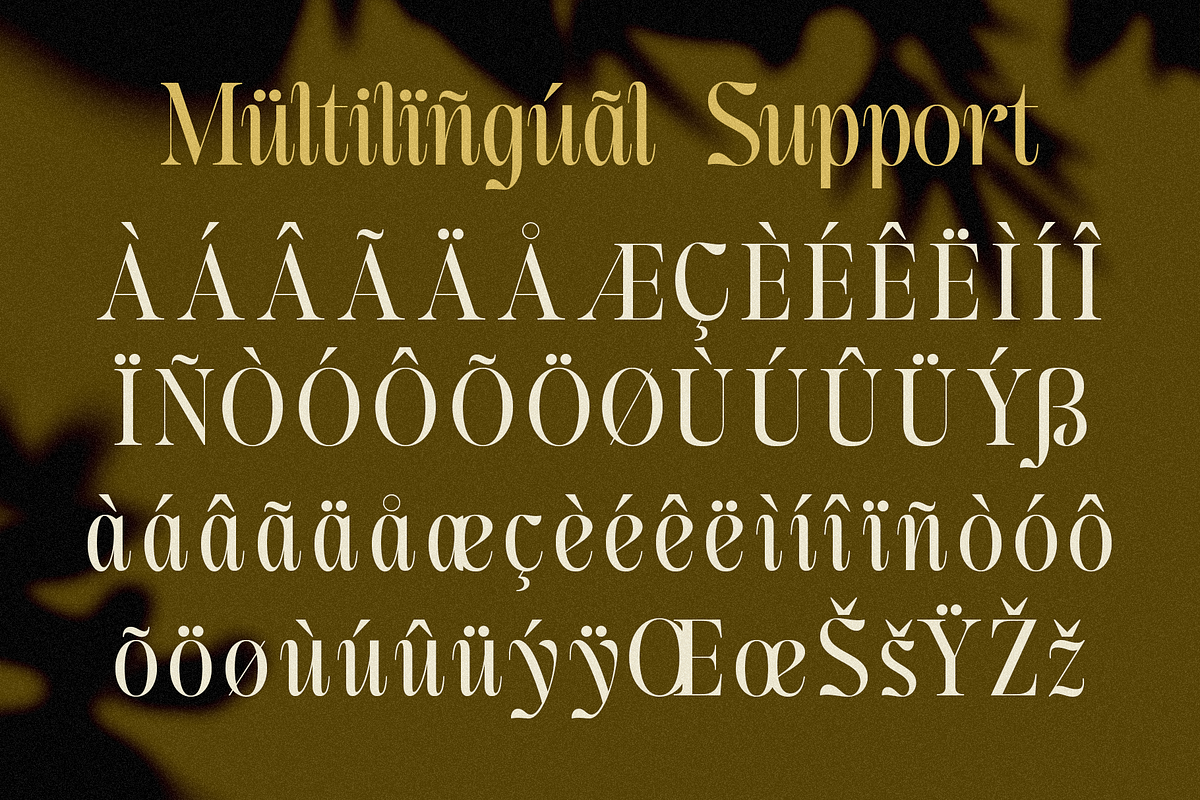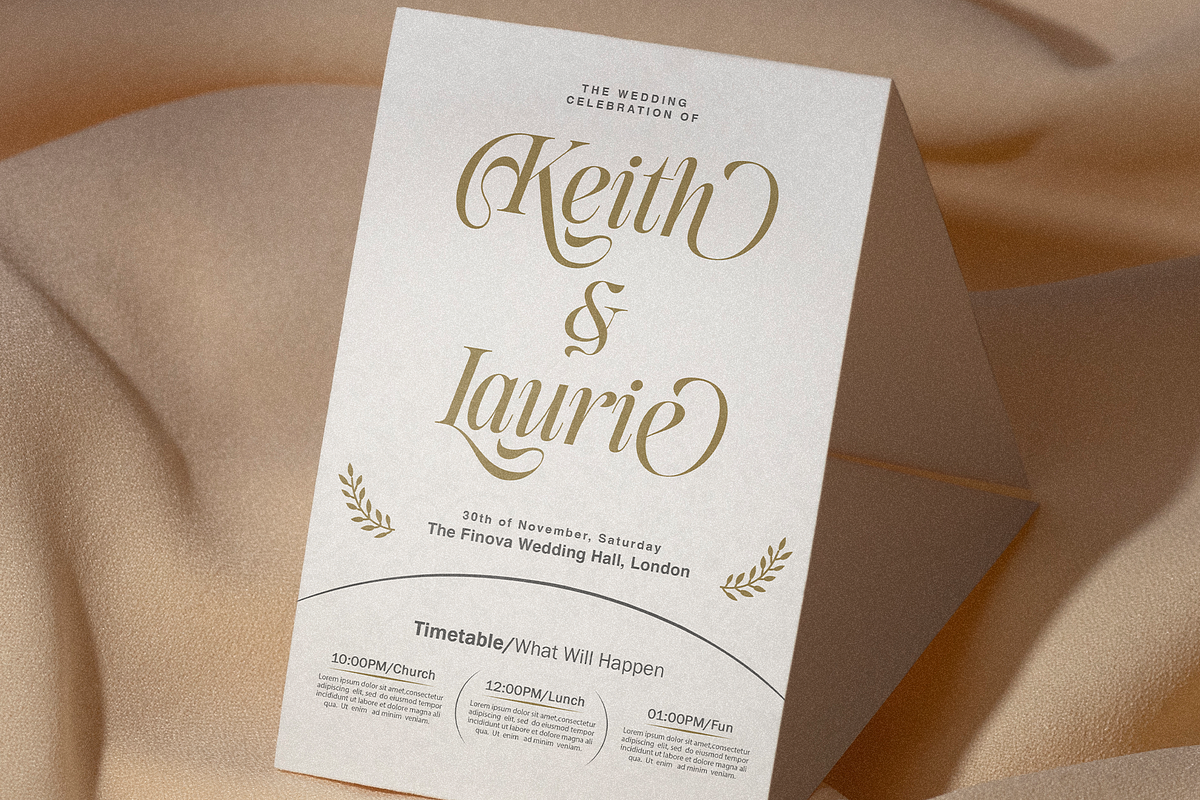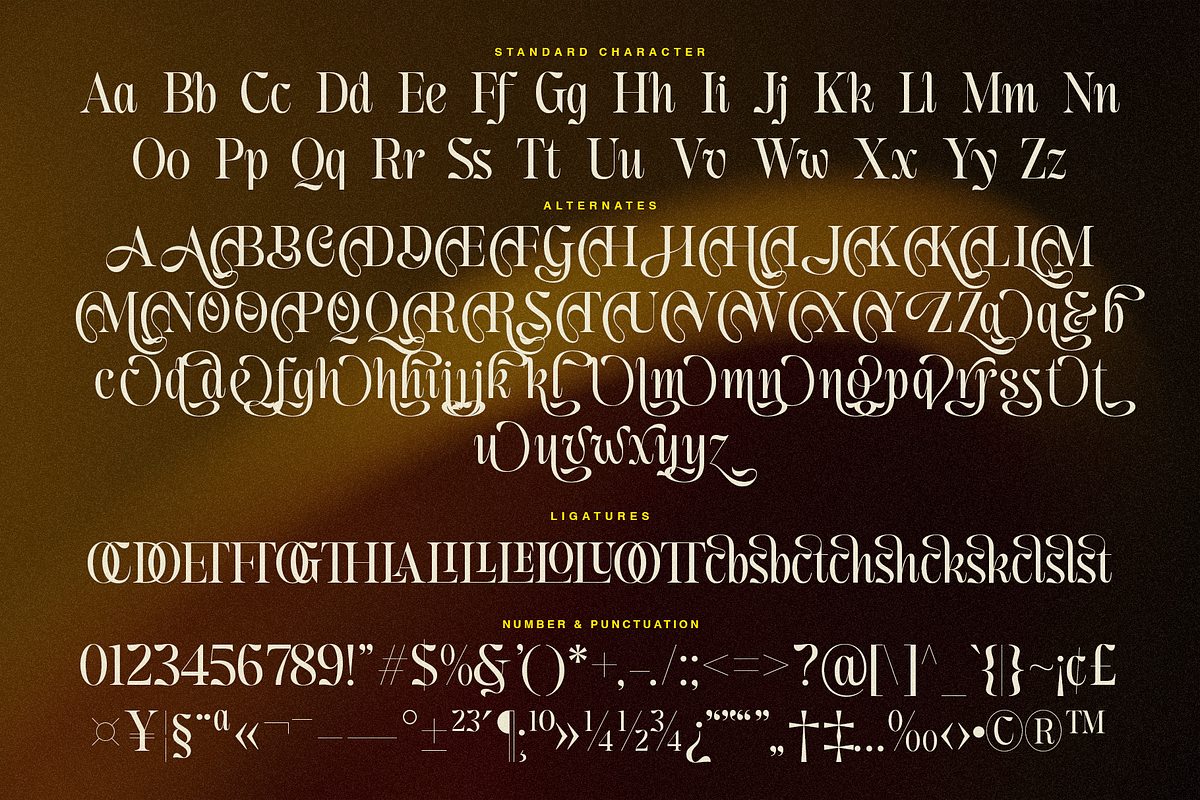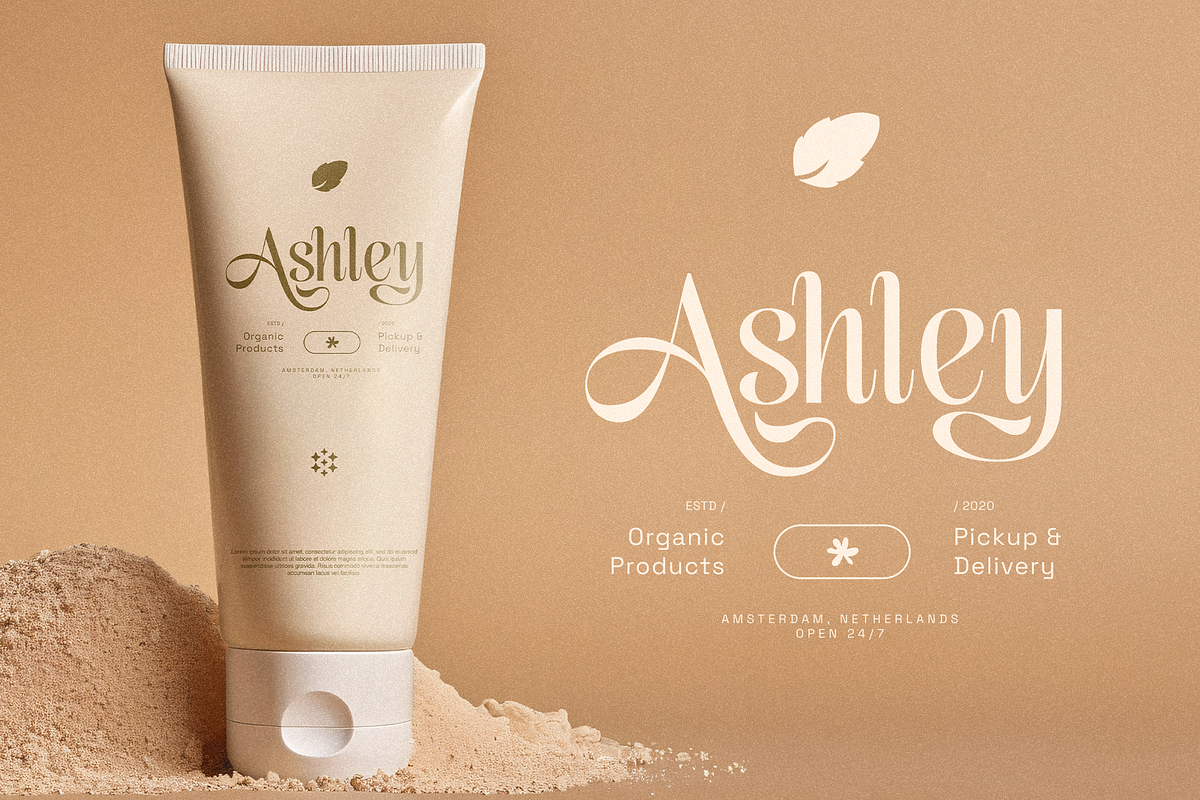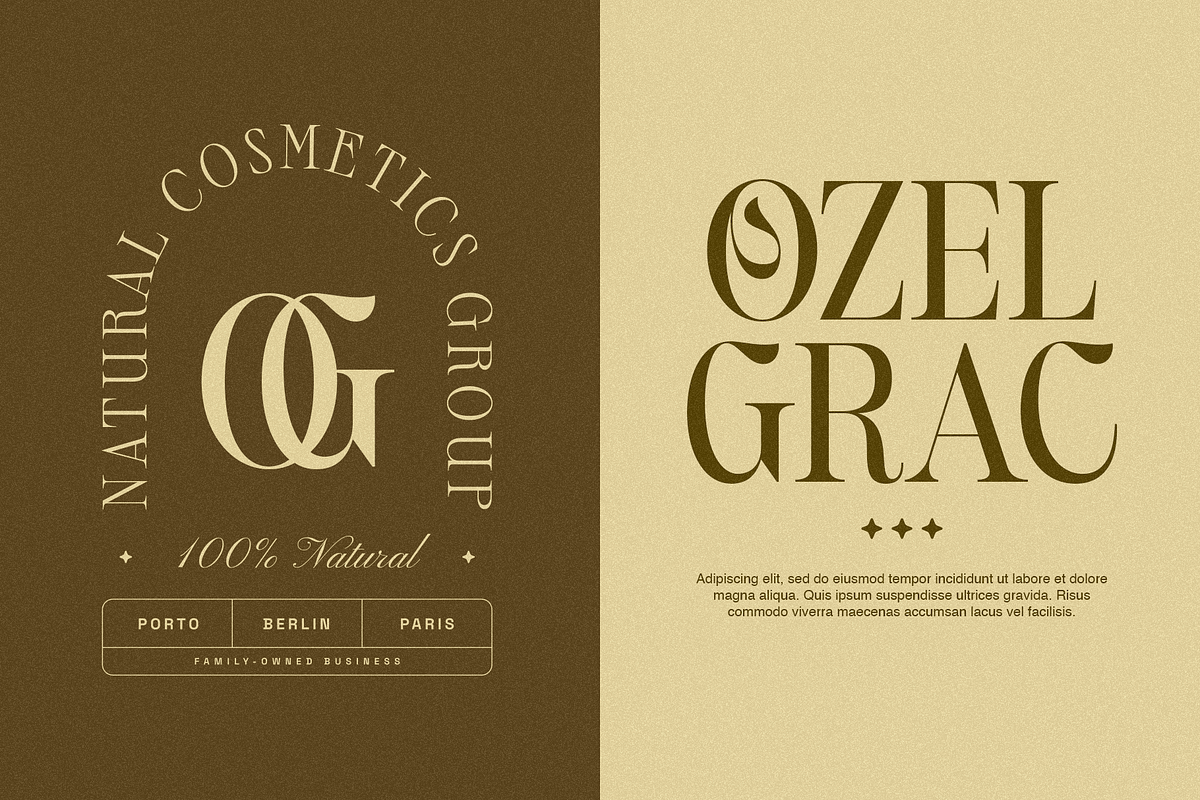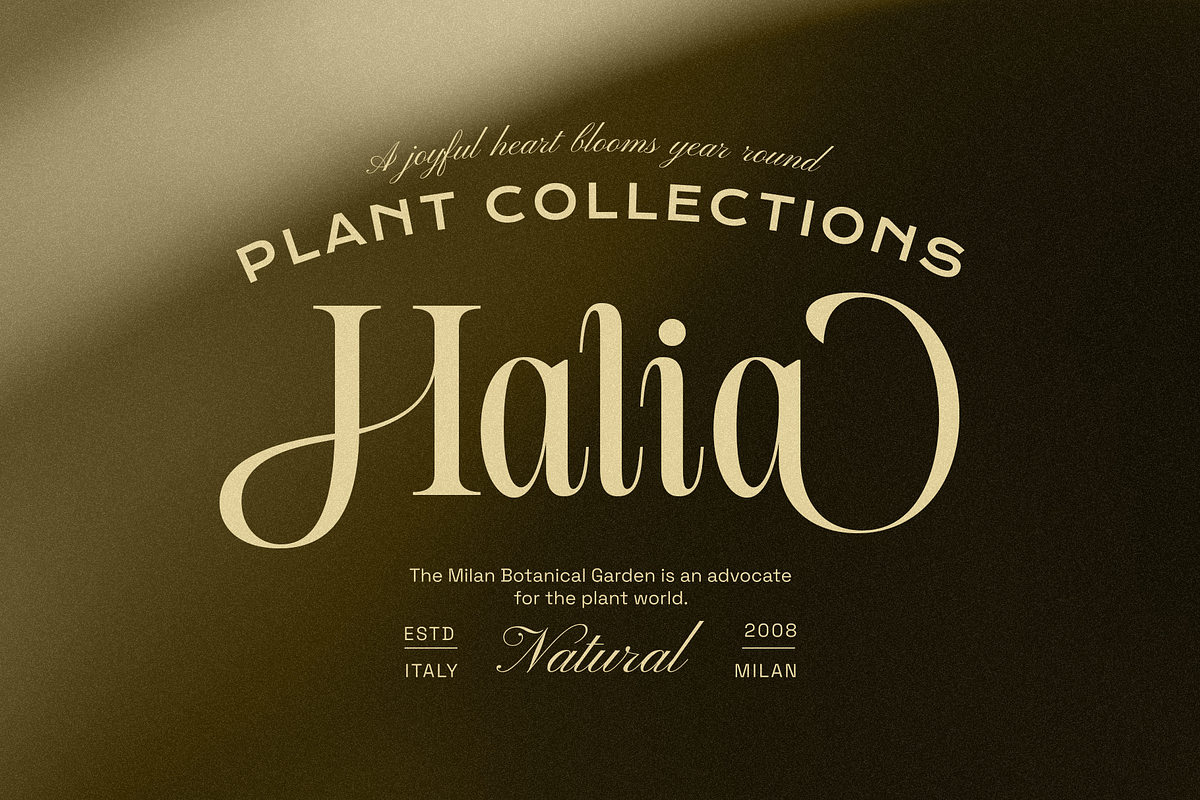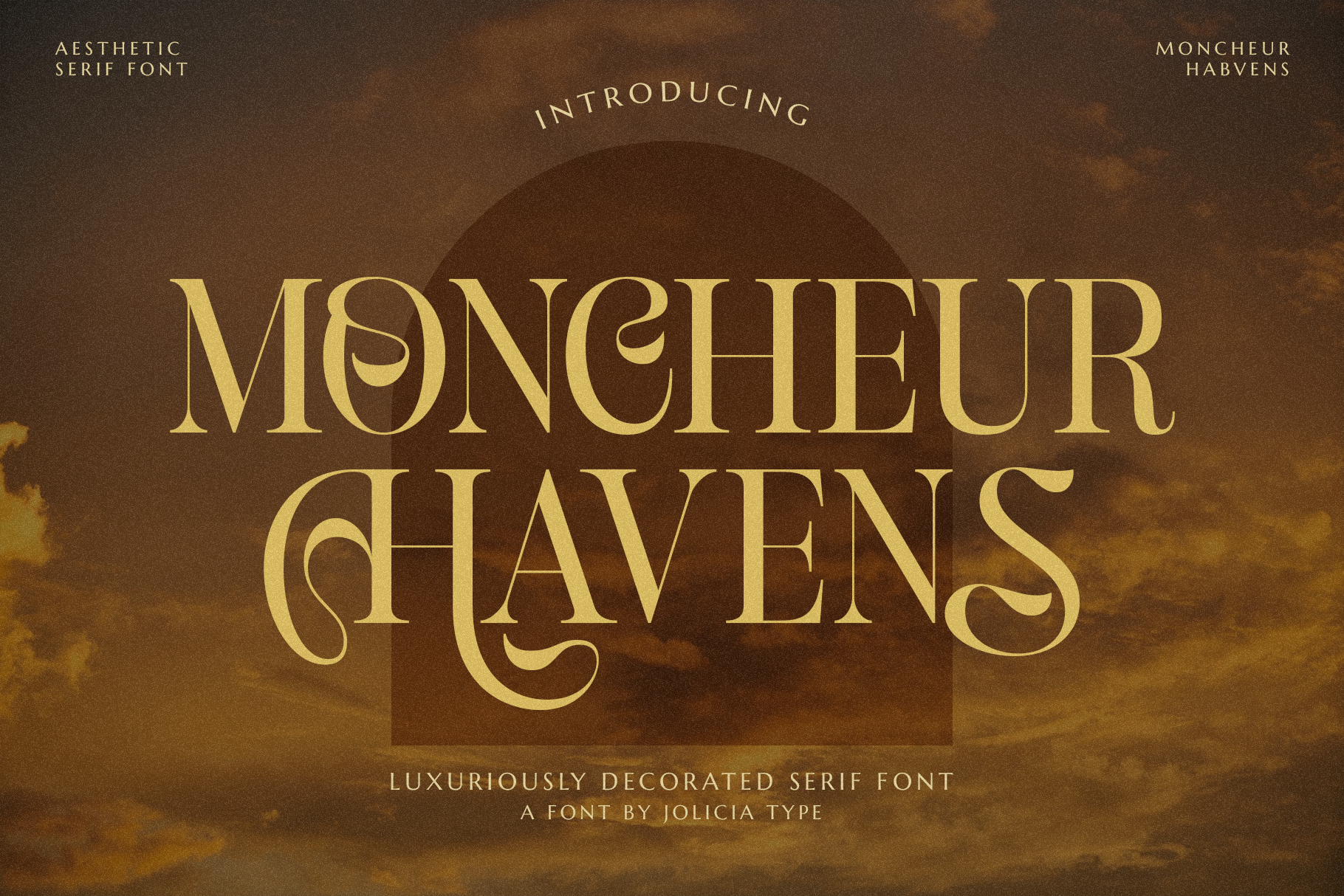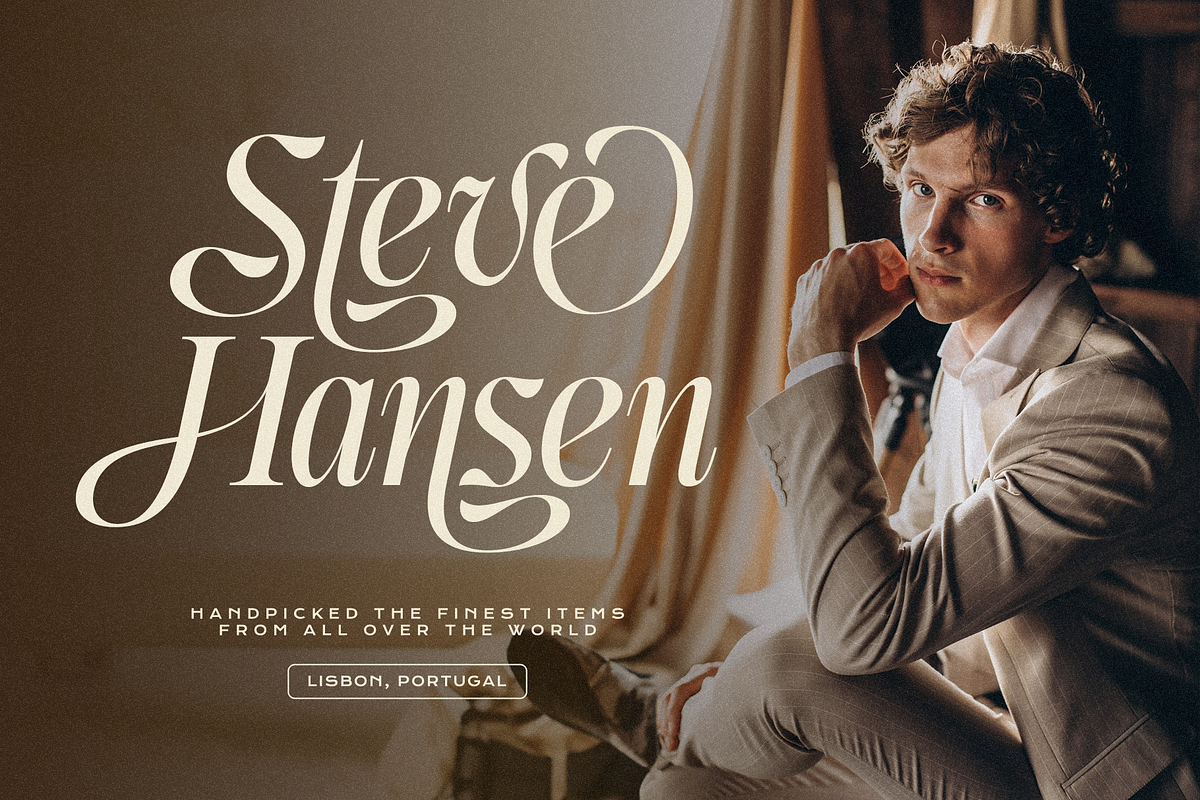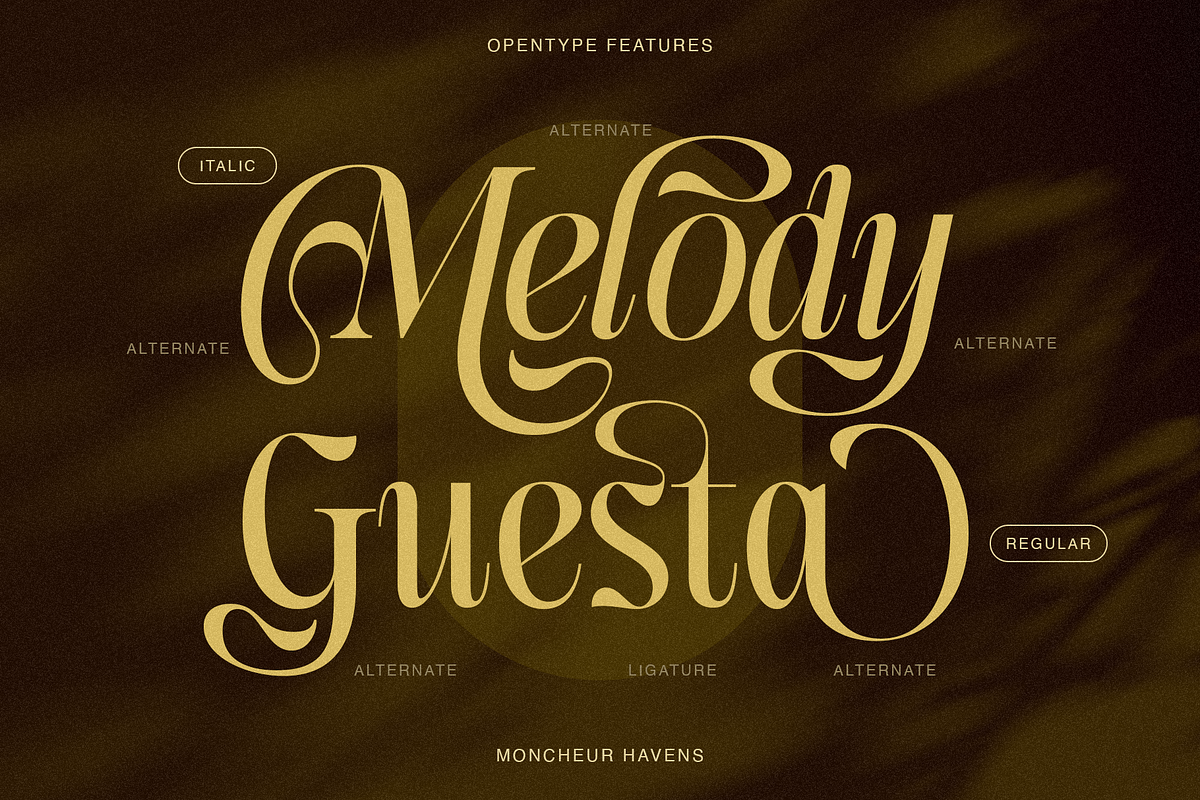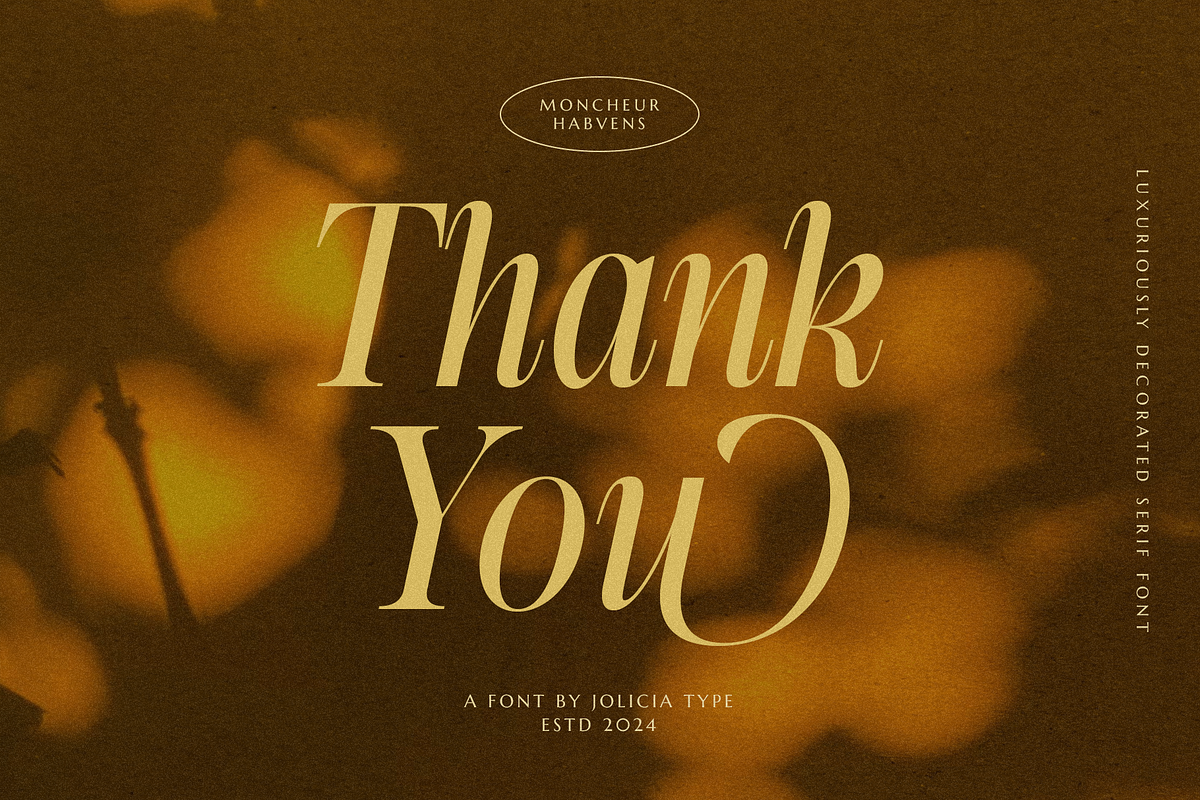
Moncheur Havens | Stylish Serif Font
Moncheur Havens is an elegant serif font that exudes classic sophistication with a modern twist. Available in both Regular and Italic styles, this font is designed to add a touch of luxury to any design. With finely crafted details in each letter, Moncheur Havens offers a captivating and easily readable aesthetic, making it perfect for a range of projects, from branding to editorial work.
Moncheur Havens also comes with beautiful alternative swashes that enhance your creative possibilities. Each alternative character is designed with graceful curves, providing flexibility and variety in usage, allowing you to create unique and memorable designs.